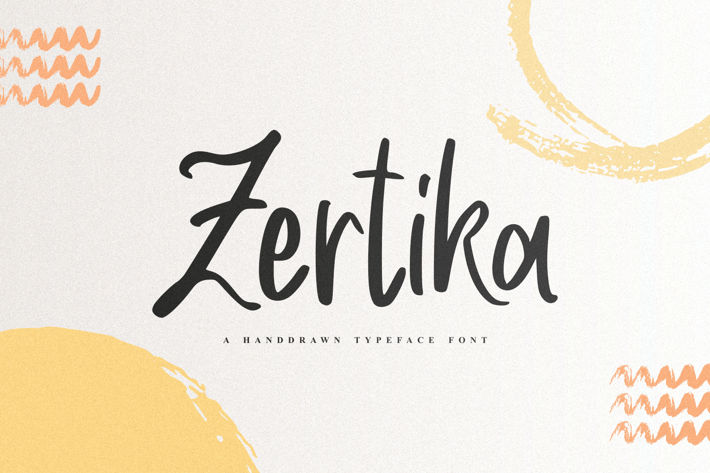
Zertika - A Handdrawn Typeface Font
Zertika - A Handdrawn Typeface Font, every single letter has been carefully crafted to make your text looks beautiful. it's perfect for logos, name cards, magazine layouts, invitations, headers, or even large-scale artwork.
- Zertika font including upper & lowercase characters, numerals and more of symbols.